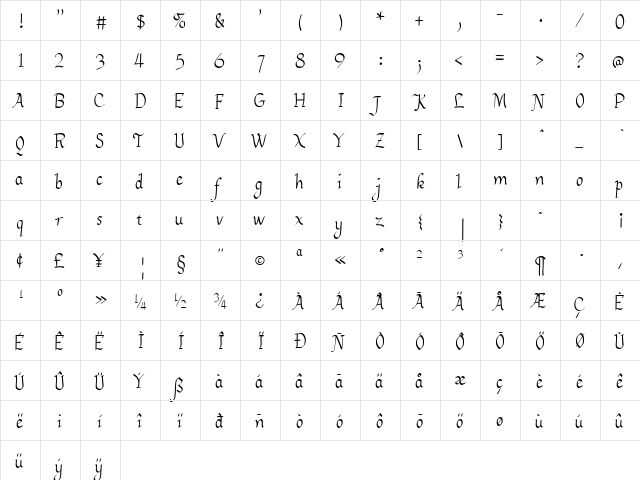
GretchenHello Plain
Design Context for GretchenHello Typeface
GretchenHello takes a measured approach to typography — its balanced proportions and neutral character make it a reliable workhorse for both digital and print work.